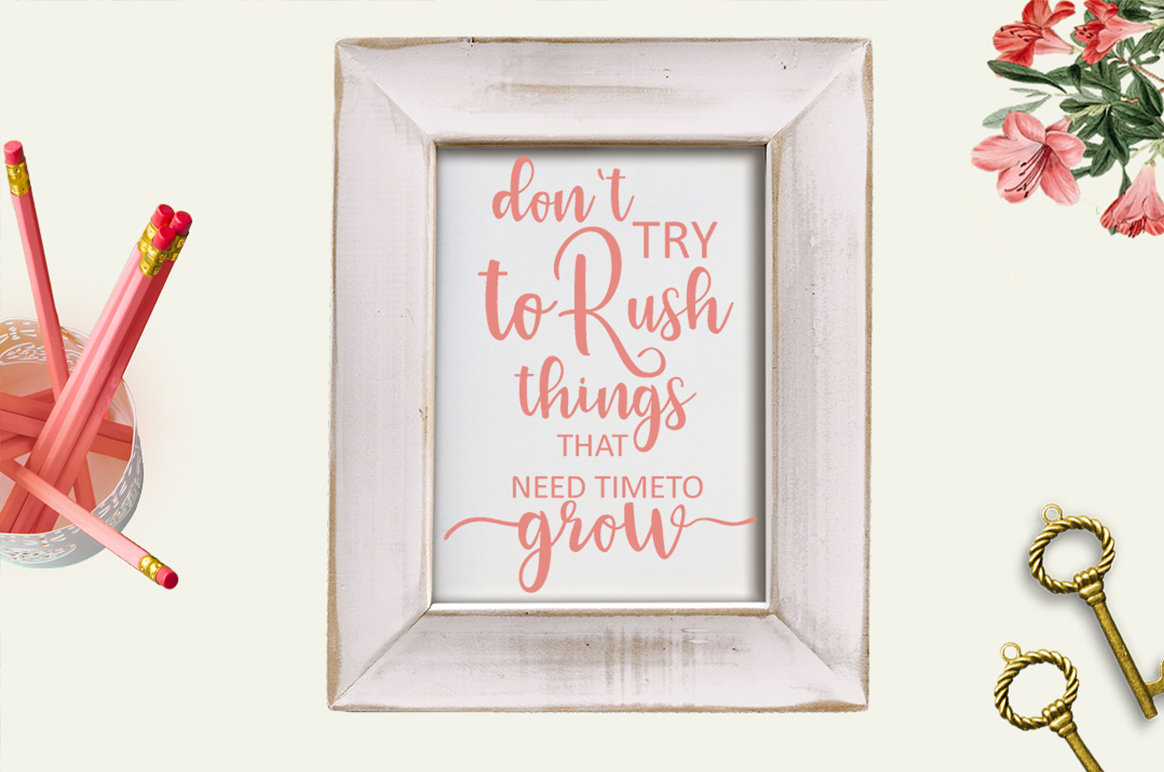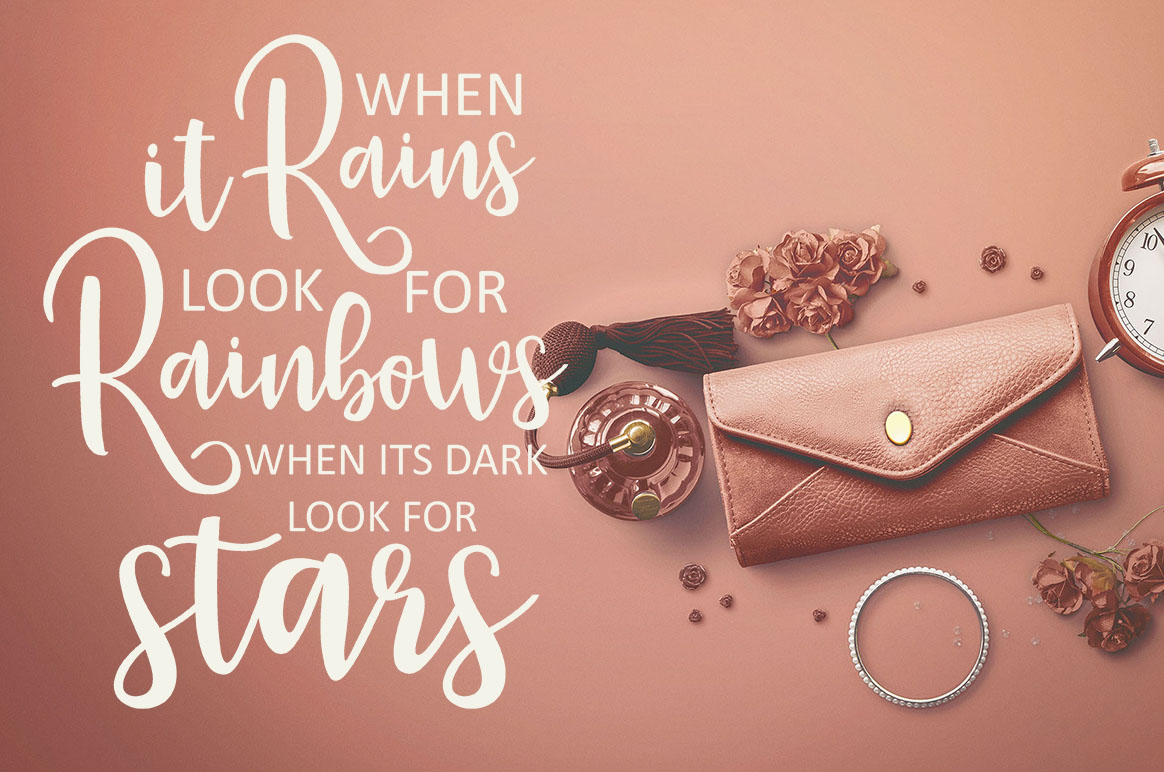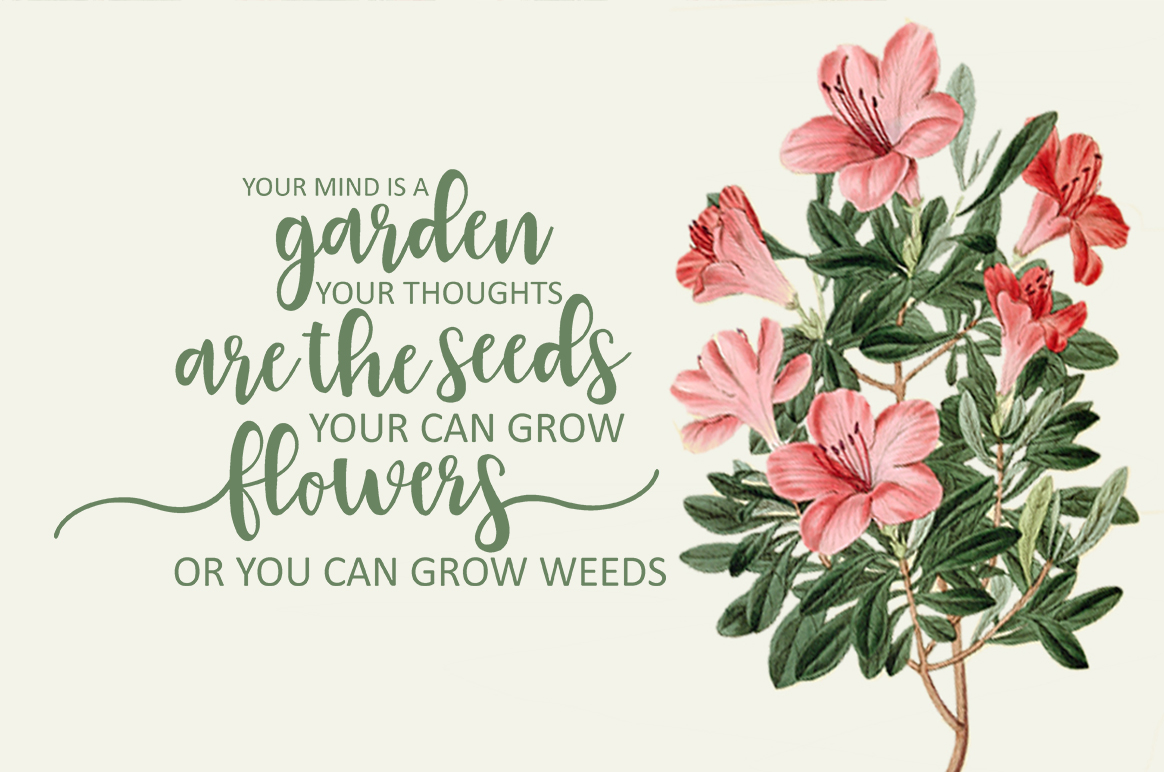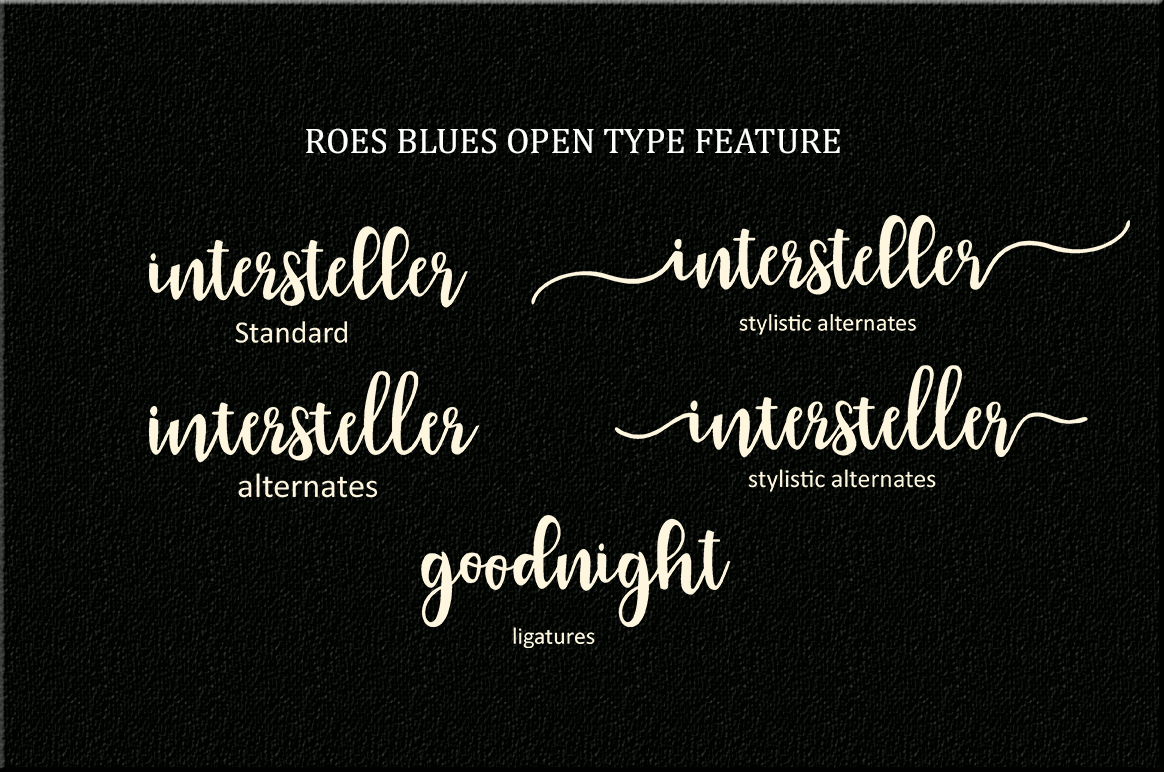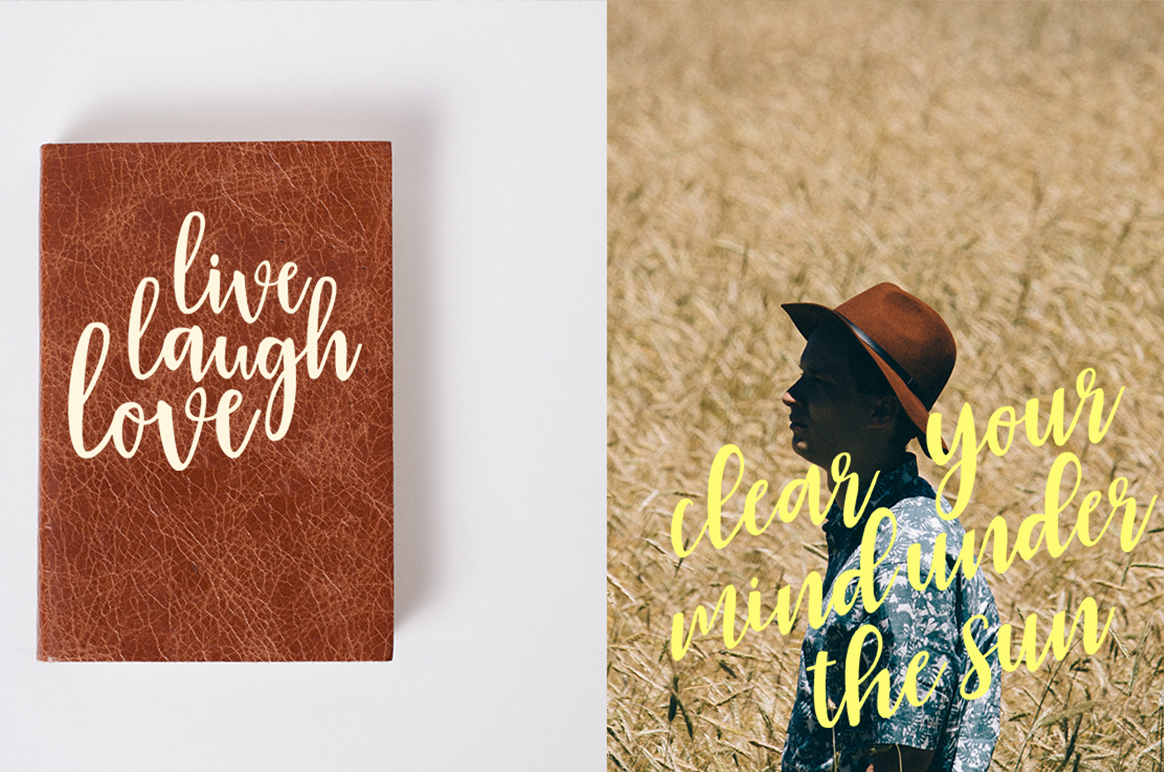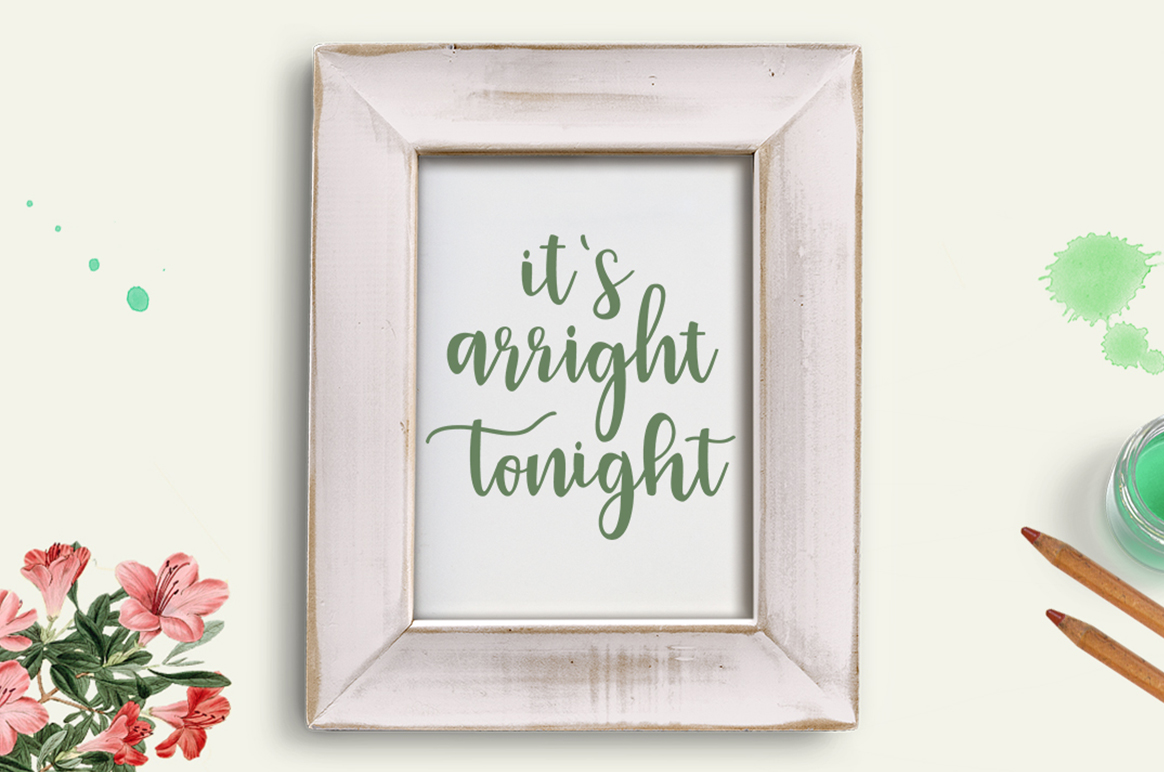
HomeScript FontsRoes Blues Font Script Fonts Roes Blues Font FacebookXPinterestWhatsApp Roes Blues Font Poster 2 Roes Blues Font Poster 3 Roes Blues Font Poster 4 Roes Blues Font Poster 5 Roes Blues Font Poster 6 Roes Blues Font Poster 7 About Roes Blues Font Roes Blues is a script font with a modern twist. It has a crispy flow and is packed with alternate characters. DOWNLOAD ON CREATIVE FABRICAThis font is sold and delivered by Creative Fabrica. Font Canyon may earn a commission if you buy through this link. People also explored Uachmain | 4 in 1 Fonts Font Boo Monogram Font Skel Bone Duo Font Bubblebloods Font Bankports Signature Font Dellyma Font Rollerblack Font Take Me Away Font Brainlove Script Font 315 0 TagsRoes Blues Font Previous articleMainstream FontNext articleBlessing Font LEAVE A REPLY Cancel reply Comment: Please enter your comment! Name:* Please enter your name here Email:* You have entered an incorrect email address! Please enter your email address here Website: Save my name, email, and website in this browser for the next time I comment. Personal Use Free The Lima Personal Use Free Read more about this font Multicolore Personal Use Free Read more about this font Winter Soldier Personal Use Free Read more about this font Mahisya Personal Use Free Read more about this font BLOG Exploring Font Trends Shaping Communication in the Digital Era Fonts, like all design elements, are subject to trends. They play a crucial role in communicating a brand's personality,... Where to Buy American Fonts Online in 2024 Using Fonts in Digital Marketing: Tips to Strengthen Your Brand Identity Modern Sans-Serif Fonts That Brands Love in 2025